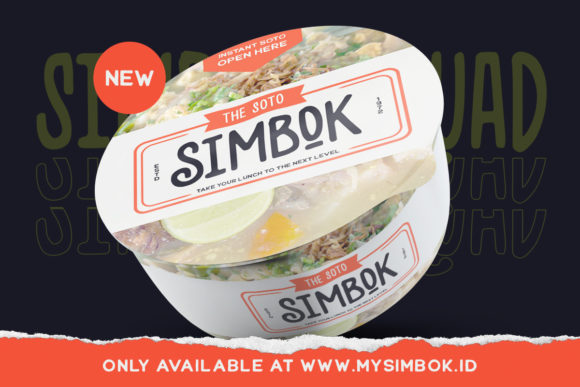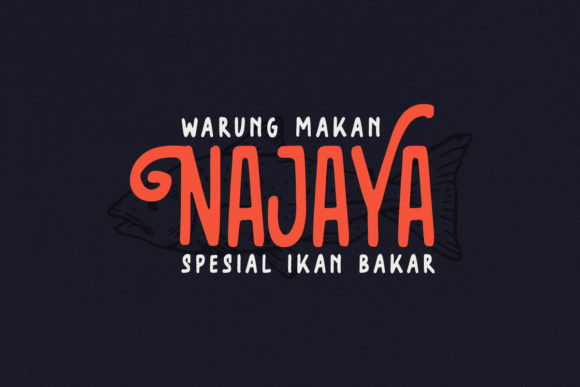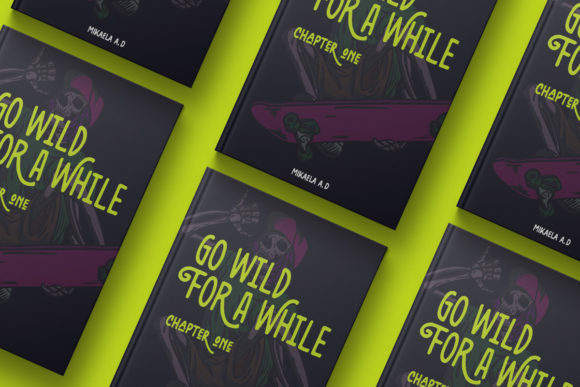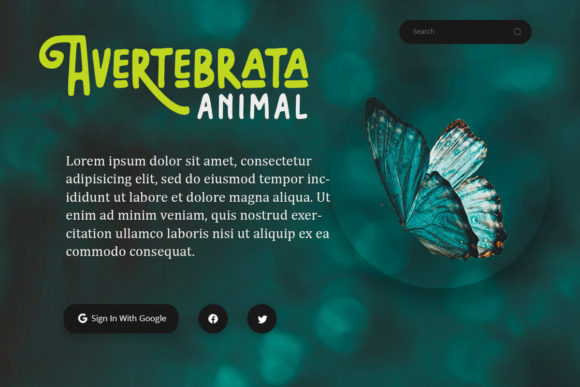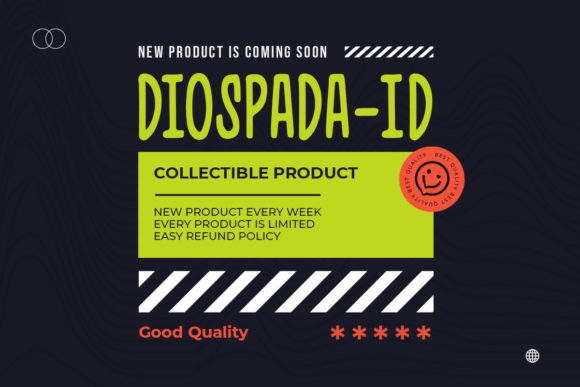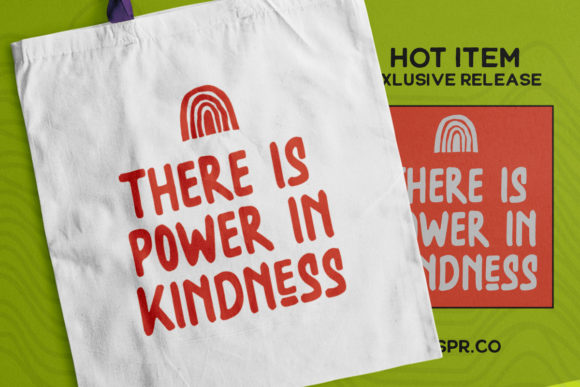
Introducing Diagakure Font: The Ultimate Vintage Display Font for Designers and Crafters
Are you tired of using the same old fonts in your designs? Do you want to add a touch of vintage charm to your projects? Look no further than Diagakure Font, a cool, adaptable, and vintage-styled display font that’s perfect for designers and crafters alike. In this article, we’ll take a closer look at what makes Diagakure Font so special and how you can use it to create spectacular designs.
What is Diagakure Font?
Diagakure Font is a beautifully crafted display font that’s inspired by the elegance of vintage typography. Its unique design features a range of intricate details, swashes, and glyphs that will add a touch of sophistication to any design project. Whether you’re working on a logo, poster, or social media graphic, Diagakure Font is the perfect choice for anyone looking to create a statement piece.
Key Features of Diagakure Font
So, what makes Diagakure Font so special? Here are just a few of its key features:
- PUA Encoded: Diagakure Font is PUA (Private Use Area) encoded, which means you can access all of the glyphs and swashes with ease. This makes it simple to customize your designs and add your own personal touch.
- Vintage Style: Diagakure Font has a unique vintage style that’s perfect for designers and crafters who want to add a touch of nostalgia to their designs.
- Adaptable: Diagakure Font is incredibly versatile and can be used for a wide range of design projects, from logos and posters to social media graphics and more.
- Cool and Sophisticated: Diagakure Font has a cool, sophisticated look that’s perfect for designers who want to create statement pieces.
- Experiment with Different Sizes: Diagakure Font looks great in a variety of sizes, from small and subtle to large and bold. Experiment with different sizes to find the one that works best for your design.
- Play with Swashes and Glyphs: Diagakure Font comes with a range of swashes and glyphs that you can use to customize your designs. Don’t be afraid to get creative and try out different combinations.
- Pair it with Other Fonts: Diagakure Font pairs well with a range of other fonts, from simple sans-serifs to more elaborate script fonts. Experiment with different pairings to find the one that works best for your design.
Why Designers and Crafters Love Diagakure Font
Diagakure Font has quickly become a favorite among designers and crafters, and for good reason. Here are just a few reasons why:
- Unique Style: Diagakure Font has a unique style that’s unlike anything else on the market. Its vintage charm and intricate details make it a standout choice for designers who want to create something special.
- Versatility: Diagakure Font is incredibly versatile and can be used for a wide range of design projects. Whether you’re working on a logo, poster, or social media graphic, Diagakure Font is a great choice.